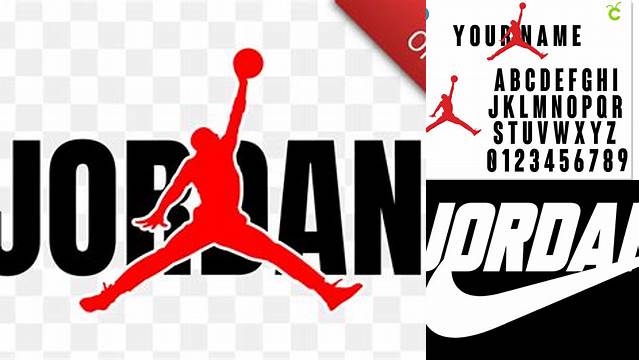
Air Jordan Font: Free Generators & Alternatives
Hey sneakerheads and design enthusiasts! Are you looking to add that iconic Air Jordan flair to your next project? The distinctive Air Jordan font has a recognizable style. From logos to custom designs, it’s a font that speaks volumes about style and athleticism. However, finding the right font and using it legally and effectively can be tricky. So, let's dive into the world of Air Jordan fonts, exploring where you can find them, how to use them, and some creative ways to incorporate them into your projects. Whether you are designing a custom t-shirt, creating social media graphics, or just experimenting with typography, this guide will provide you with everything you need to know about Air Jordan fonts.
Understanding the Air Jordan Font
Before we jump into finding a free Air Jordan font generator, let’s talk about what makes this font so special. The Air Jordan font, characterized by its bold, sporty, and dynamic appearance, is more than just a typeface; it's a symbol of athletic achievement, cultural impact, and stylish design. Its distinctive letterforms have graced iconic logos, advertisements, and merchandise, making it instantly recognizable to fans worldwide. Understanding its origins and unique features will help you appreciate its design and use it effectively in your projects. The story of this font is intertwined with the legacy of Michael Jordan himself, making it a powerful visual element in the world of sports and fashion. When you use the Air Jordan font, you are tapping into a rich history and a legacy of excellence.
The History and Inspiration Behind the Font
The history of the Air Jordan font is deeply rooted in the legacy of Michael Jordan and the Nike Air Jordan line. In 1984, Nike took a chance on a young basketball player named Michael Jordan, and that partnership would change the world of sports and fashion forever. The Air Jordan line was more than just athletic shoes; it was a cultural phenomenon. The font used in the Air Jordan branding played a crucial role in establishing its identity. While there isn’t an officially released “Air Jordan” font, the typography used in various Air Jordan logos and marketing materials draws inspiration from several athletic and industrial fonts. The design team at Nike likely used existing typefaces as a starting point, modifying them to create a unique look that matched the energy and dynamism of Michael Jordan on the court. This custom approach means that there isn't a single, universally recognized "Air Jordan" font, but rather a collection of similar styles that evoke the brand's aesthetic.
Key inspirations for the Air Jordan font include bold, sans-serif typefaces that convey strength and speed. Think of fonts that are used in sports jerseys or industrial machinery – these often have the same robust and impactful presence. The designers also aimed for a modern and futuristic look, reflecting the innovative technology and cutting-edge style of Air Jordan products. Over the years, different variations of the font have appeared in different Air Jordan campaigns and product lines, each with its own subtle nuances. This evolution of the Air Jordan font reflects the brand's ongoing commitment to innovation and its ability to stay ahead of trends. By understanding the historical context and design inspirations, you can make more informed choices when selecting a font for your own Air Jordan-inspired projects.
Key Characteristics of the Air Jordan Font
To truly capture the essence of the Air Jordan font, it's essential to understand its key characteristics. The font is not just any typeface; it's a carefully crafted visual element that communicates a sense of power, speed, and style. Here are some of the defining features that make the Air Jordan font so recognizable and impactful:
- Bold and Strong: The font is characterized by its bold weight, making it stand out and command attention. This boldness conveys a sense of strength and confidence, mirroring the athletic prowess of Michael Jordan. The thick strokes of the letters ensure that the font remains legible even at a distance, which is crucial for branding and advertising purposes.
- Sans-Serif Design: Typically, the Air Jordan font is a sans-serif typeface, meaning it lacks the small decorative extensions (serifs) found on fonts like Times New Roman. This gives it a clean, modern, and athletic appearance. The absence of serifs also contributes to the font's legibility and its suitability for a variety of applications, from logos to headlines.
- Geometric Shapes: Many variations of the Air Jordan font feature geometric shapes, such as clean lines and sharp angles. This adds a technical and futuristic feel to the font, aligning with the innovative nature of Air Jordan products. The geometric elements also contribute to the font's overall sense of precision and dynamism.
- Slightly Condensed: The font often has a slightly condensed appearance, meaning the letters are taller than they are wide. This creates a sense of verticality and speed, further enhancing its athletic aesthetic. The condensed form also allows for more text to fit in a given space, which can be useful in design layouts.
- Dynamic and Energetic: The overall feel of the Air Jordan font is dynamic and energetic, reflecting the high-energy world of basketball and sports. The font's bold weight, sans-serif design, and geometric shapes all contribute to this sense of movement and excitement. When used effectively, the font can instantly inject a sense of energy into any project.
By understanding these key characteristics, you can better identify fonts that capture the Air Jordan aesthetic and use them to create designs that resonate with the brand's iconic style. Whether you are designing a logo, creating a poster, or working on a website, keeping these elements in mind will help you achieve the desired impact.
Finding Free Air Jordan Font Options
Now, let’s get to the exciting part: finding free Air Jordan font options! While there isn't a single, officially licensed font that you can download and use, several fonts capture the essence of the Air Jordan style. These fonts, often inspired by the typography used in Air Jordan branding, can be used for personal projects and creative endeavors. However, it’s crucial to be aware of licensing restrictions and ensure that you are using these fonts legally. We'll explore various resources where you can find these fonts, as well as discuss the importance of respecting intellectual property rights. Remember, using fonts legally not only protects the designers but also ensures that your projects are free from potential legal issues.
The Air Jordan font, with its bold and dynamic style, is a powerful tool for capturing the essence of athleticism and modern design. Whether you're working on branding, social media graphics, or personal projects, understanding how to find and use Air Jordan-inspired fonts can significantly enhance your work. We've explored various resources for finding free options, alternative fonts that capture a similar aesthetic, and creative ways to incorporate them into your designs. Remember, while the allure of a free Air Jordan font generator is strong, it's crucial to prioritize legal and ethical font usage. Always check font licenses to ensure you're respecting the designer's rights. By following the guidelines and tips we've discussed, you can create stunning designs that pay homage to the Air Jordan legacy while staying within legal boundaries. So, go ahead and experiment, but always do it responsibly!